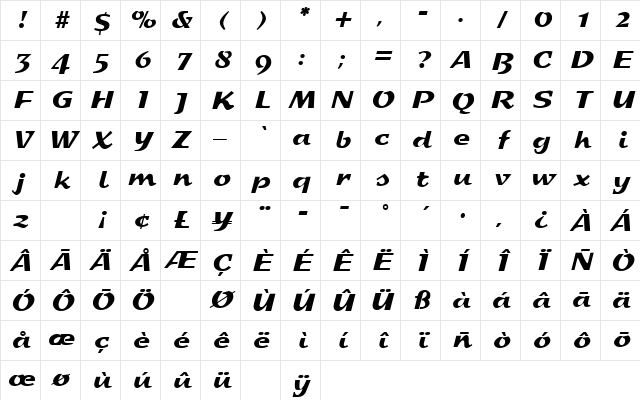
Sprint SF Regular
Design Context for Sprint SF
Sprint SF is a composed and adaptable typeface that performs quietly and consistently across a wide range of design contexts.